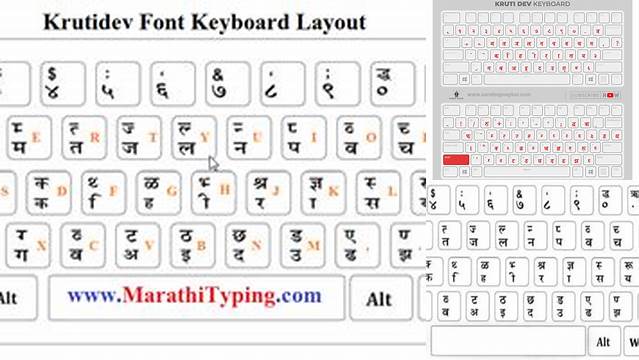
Hey guys! Ever wanted to spice up your documents with some classic Marathi flair? Well, you're in the right place! We're diving headfirst into the world of Kruti Dev Marathi fonts, specifically focusing on how to get them rocking on your Windows 7 machine. This is your go-to guide for a free download and installation, ensuring you can sprinkle that beautiful Marathi script into your projects, presentations, and everyday writing. Let's get started, shall we?
What is Kruti Dev Font? The Basics
Alright, first things first: What exactly is Kruti Dev font? It's one of the most popular and widely used fonts for writing in Marathi. It's been a go-to for everything from official documents to creative projects, thanks to its clear readability and the familiarity that users have with it. If you're a Windows 7 user, getting this font means opening up a whole new world of possibilities for communicating in Marathi. Kruti Dev is not just a font; it's a bridge to expressing yourself and connecting with the Marathi-speaking community. The font's design is specifically tailored to accommodate the unique characters and ligatures of the Marathi language, ensuring that your text looks authentic and professional. Whether you're designing posters, creating invitations, or simply writing emails, having Kruti Dev installed gives you the power to represent your content in a culturally relevant and visually appealing way. Think of it as adding a splash of vibrant culture to your digital canvas! The best part? It's designed to be user-friendly, making it easy for both beginners and experienced users to type in Marathi. This means no more struggling with complex character maps or complicated keyboard layouts. Kruti Dev simplifies the process, allowing you to focus on your message rather than the technicalities. The fonts are created to make Marathi writing as easy as possible, enabling you to effortlessly express yourself. Furthermore, the fonts are created to ensure consistency in Marathi communications, and provide an enjoyable user experience.
Using Kruti Dev opens up a realm of creative potential. Imagine designing eye-catching posters for cultural events or creating beautiful certificates that proudly display Marathi text. It's not just about aesthetics; it's about celebrating your heritage and sharing your language with the world. This font is designed to work seamlessly with a range of software like Microsoft Word, Adobe Photoshop, and many other applications, making it incredibly versatile. You can easily switch between English and Marathi text, allowing you to create bilingual documents with ease. The font also ensures that your content looks consistent across different devices and platforms. So, whether you're sharing your work online or printing it out, you can be confident that it will look exactly as intended. And, of course, the free download aspect is a massive win. Why pay for a font when you can get a high-quality one for free? That accessibility makes it an excellent choice for students, writers, designers, and anyone else who wants to incorporate Marathi into their work without breaking the bank.